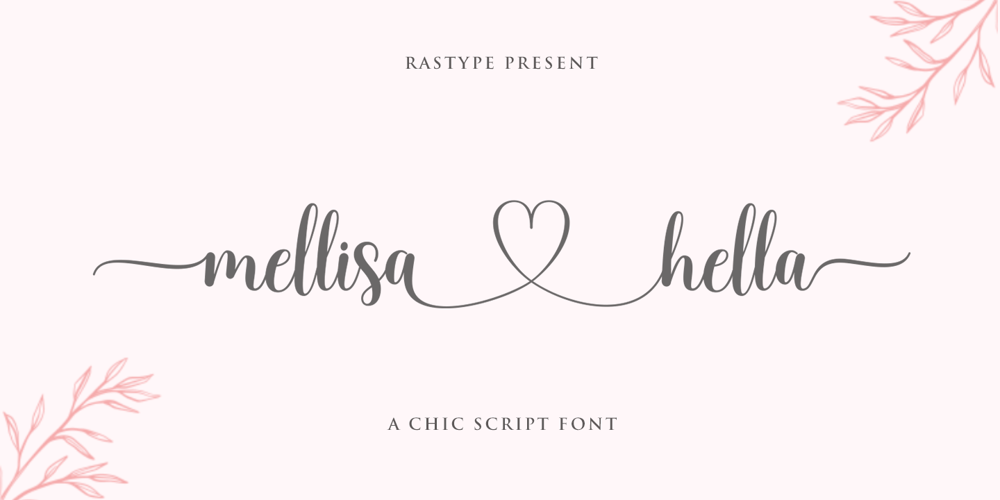
Mellisa Hella Font Family was designed by Muhammad Taufik and published by Rastype Studio. Mellisa Hella contains 1 styles and family package options. Melissa Hella is a beautiful, modern script font that’s perfect for wedding invitations, t-shirts, branding, and other romantic projects.The font includes OpenType features with alternative styles, ligatures, and multiple language support.To activate the OpenType Stylistic alternative, you need a program that supports OpenType features such as Adobe Illustrator CS, Adobe Indesign & CorelDraw X6-X7, Microsoft Word 2010 or a later version.There are additional ways to alternate / swash, using the Character Map (Windows), Nexus Font (Windows), Font Book (Mac) or a software program like PopChar (for Windows and Mac).How to access all alternative characters, using Windows Character Map with Photoshop:https://www.youtube.com/watch?v=Go9vacoYmBwHow to access all alternative characters using Adobe Illustrator:http://youtu.be/iptSFA7feQ0How to use a style font set in Microsoft Word 2010 or later versions:https://youtu.be/x1A_ilsBsGs